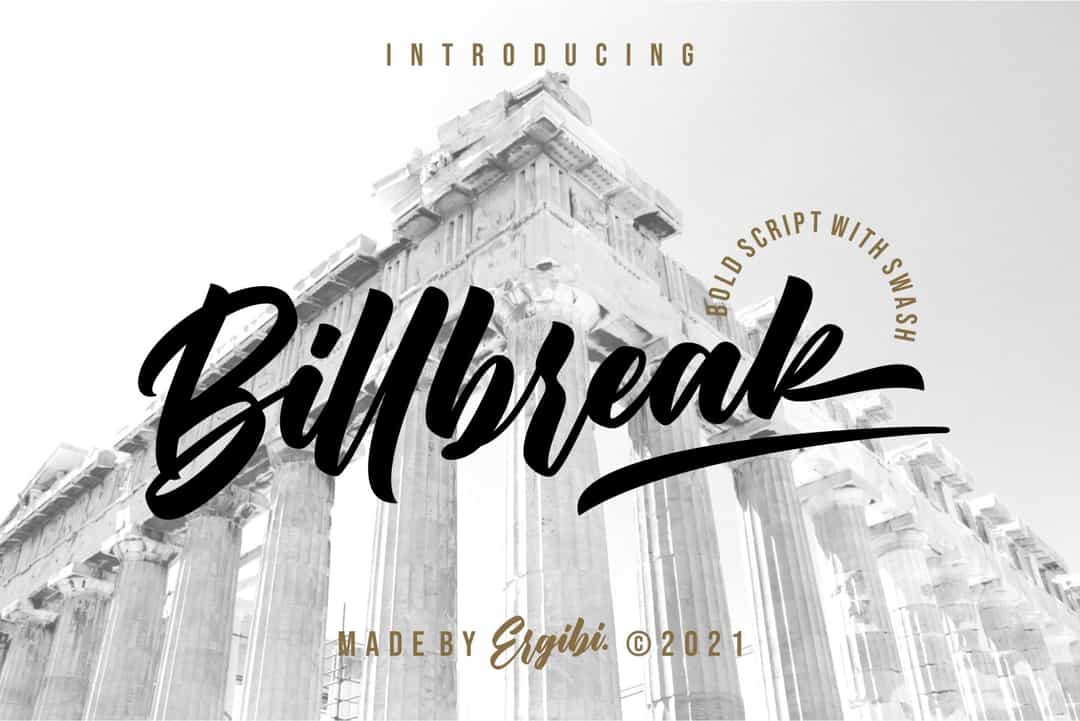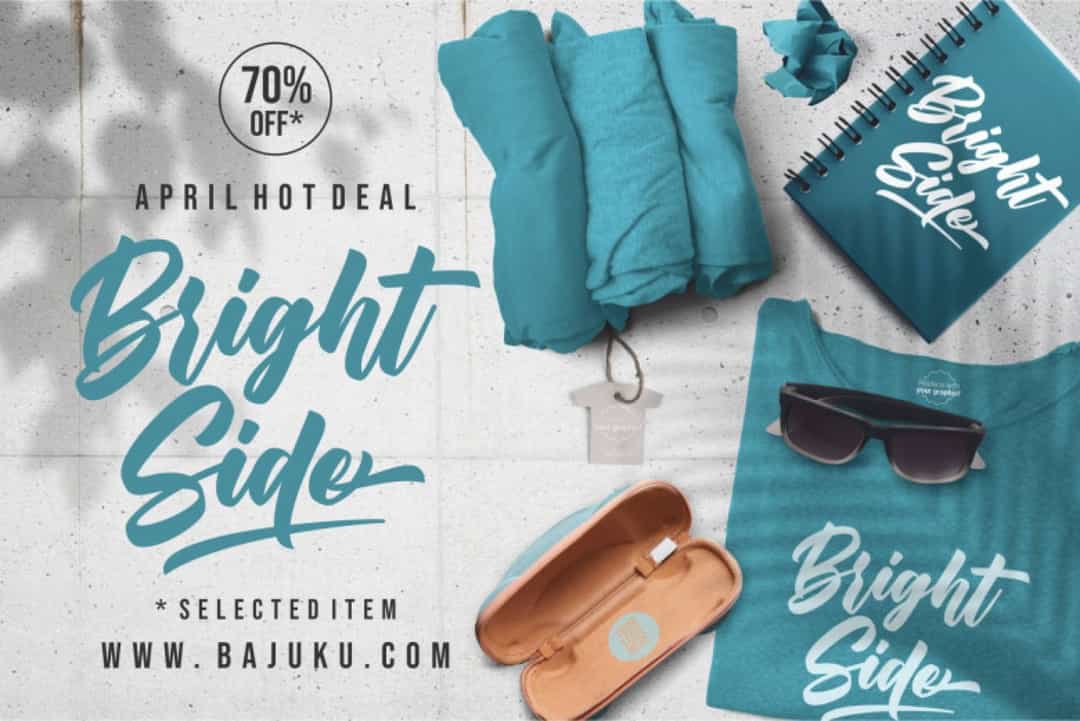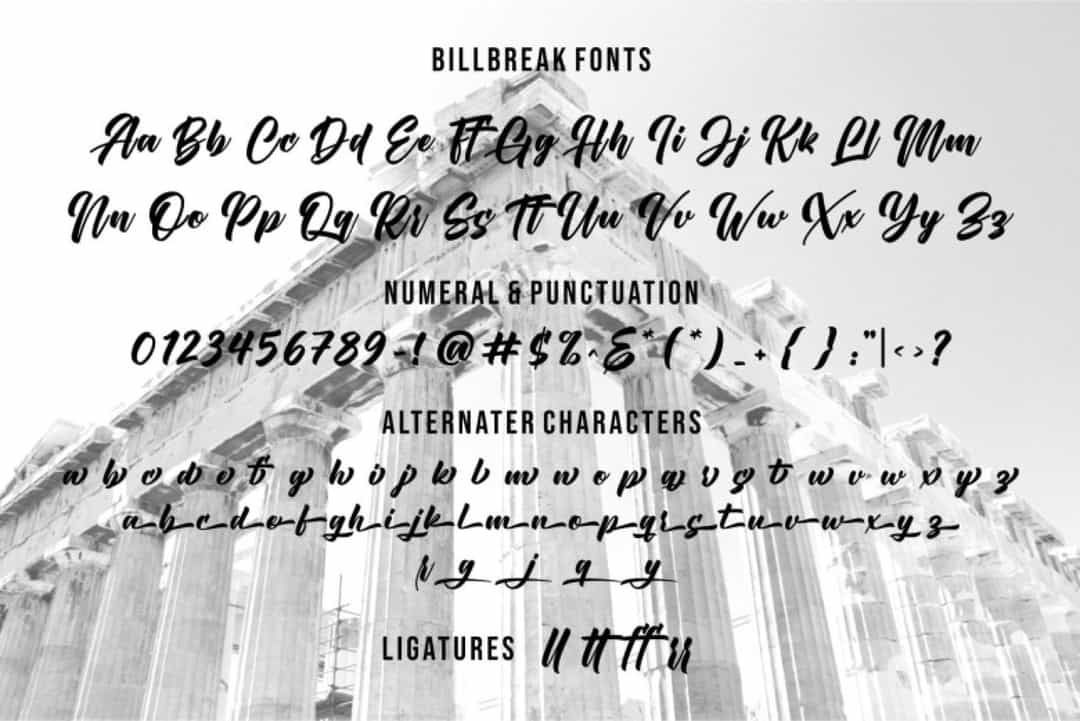
Billbreak Brush Font is an urban fashion inspired font, perfect for use in projects requiring calligraphy such as logos, badges and apparel, product packaging and headlines, T-shirt/apparel designs, posters or anything requiring calligraphy.